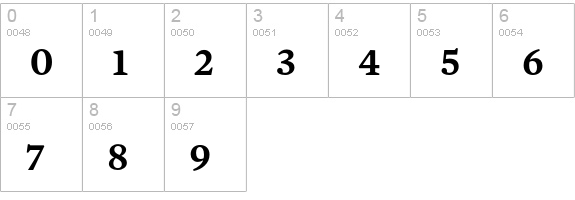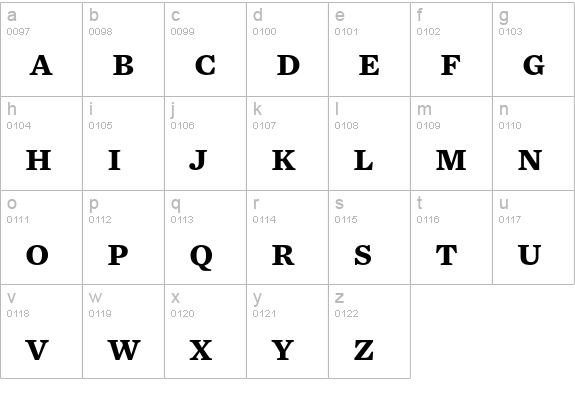
Mercury Text G4 Semibold SC Font Details
Mercury Text G4 Semibold SC is a sub-bold, structured variant in the Mercury typeface family \xE2\x80\x94 well suited to sub-headlines and emphasised passages.
Mercury Text G4 Semibold SC font is a versatile and modern typeface that strikes the perfect balance between professionalism and style. With its bold and sturdy appearance, this font exudes confidence and authority, making it ideal for a wide range of design projects. Whether you're creating a sleek corporate presentation or a stylish branding campaign, Mercury Text G4 Semibold SC font will elevate your work to new heights. And the best part? This font is available for free download at FontsMarket.com. Simply visit the website and add this premium font to your collection without spending a dime. Don't miss out on the opportunity to enhance your designs with the timeless appeal of Mercury Text G4 Semibold SC font. Download it now and let your creativity shine!